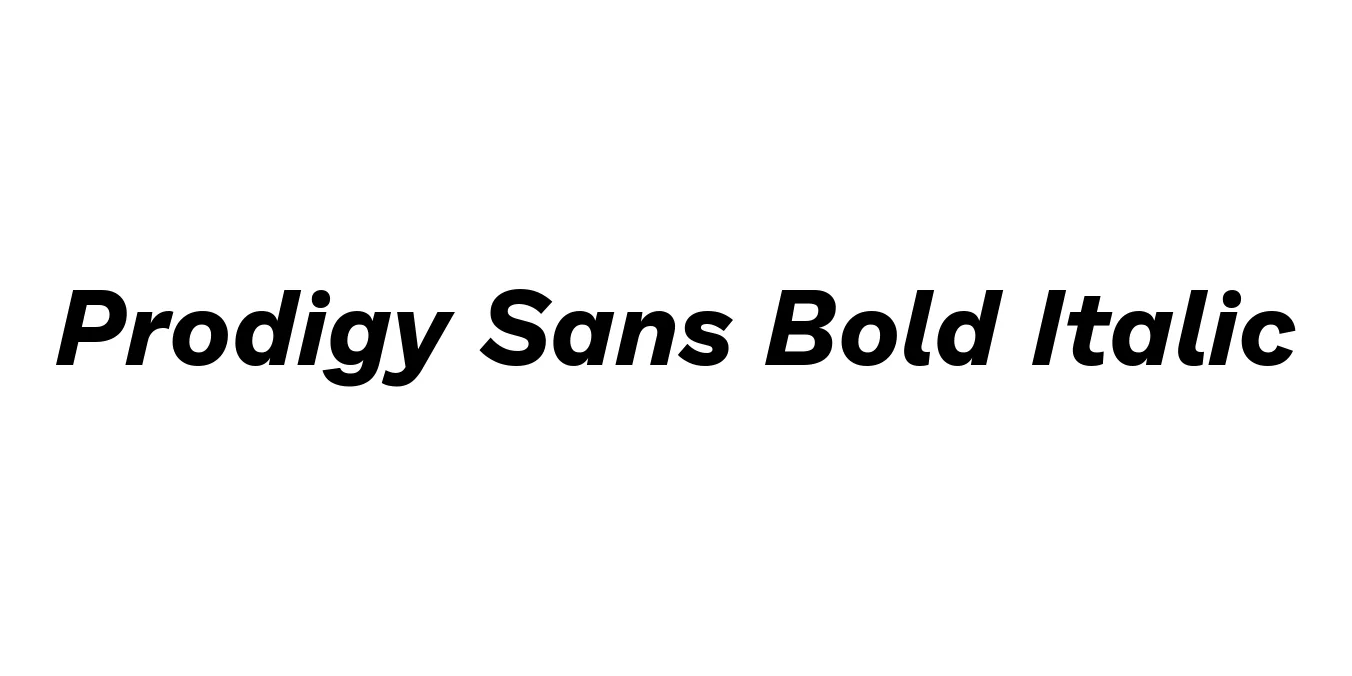
Prodigy Sans Bold Italic
Designed by Oliya Creative
| Font Name | Prodigy Sans |
| Designer | Oliya Creative |
Prodigy Sans Bold Italic is a sophisticated and contemporary sans-serif typeface engineered to balance geometric precision with humanistic undertones. This specific weight offers a striking visual presence, characterized by its sharp angles, balanced proportions, and a dynamic italic slant that conveys a sense of forward motion and professional urgency.
Originally developed for modern branding environments, the Prodigy Sans family excels in high-resolution digital displays and high-quality print productions. Its bold italic style is particularly effective for creating hierarchy in editorial design, allowing key phrases and headers to stand out with clarity and modern elegance.
Prodigy Sans Bold Italic Best Uses
Ideal for creating impactful logos and distinctive corporate identities.
Perfect for magazine headers, pull quotes, and highlighting key text.
Great for high-energy promotional materials and outdoor signage.
Highly readable for call-to-action buttons and landing page headlines.